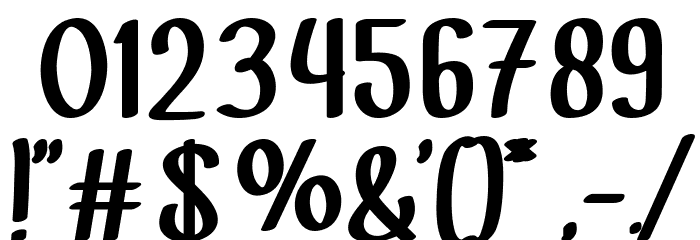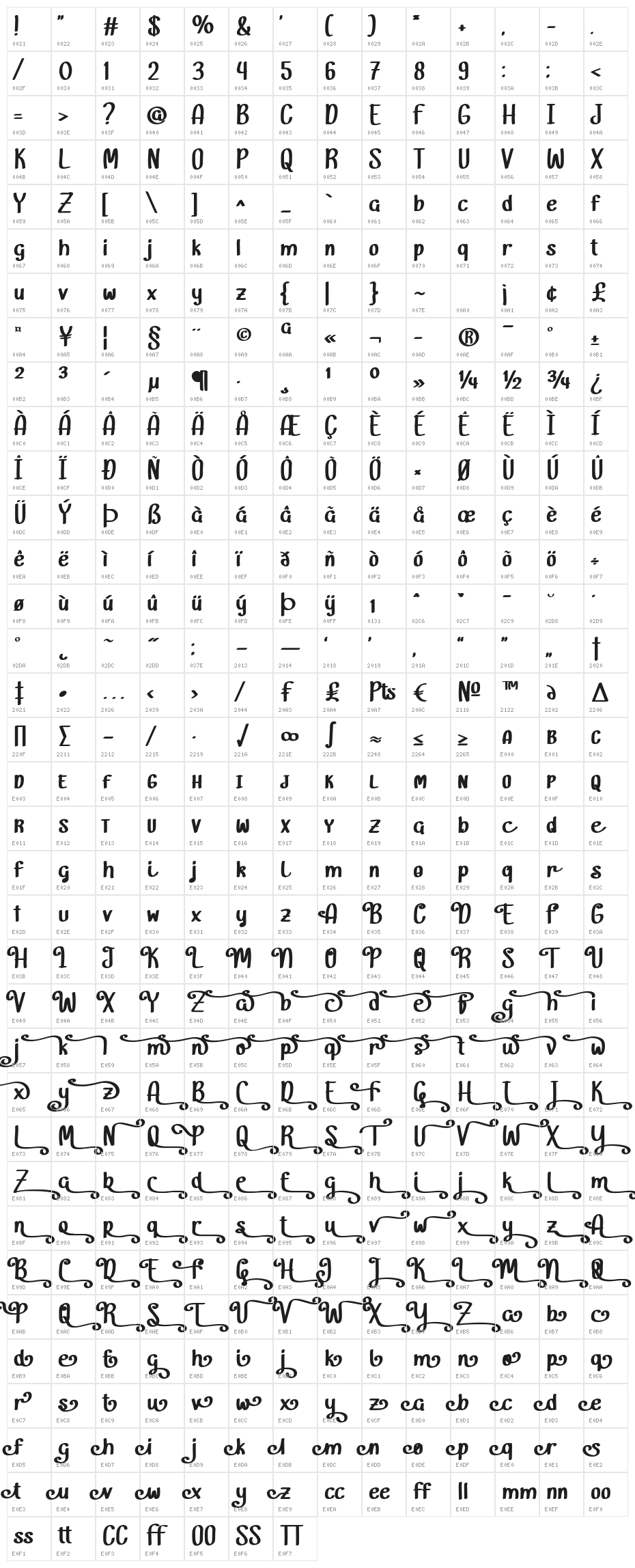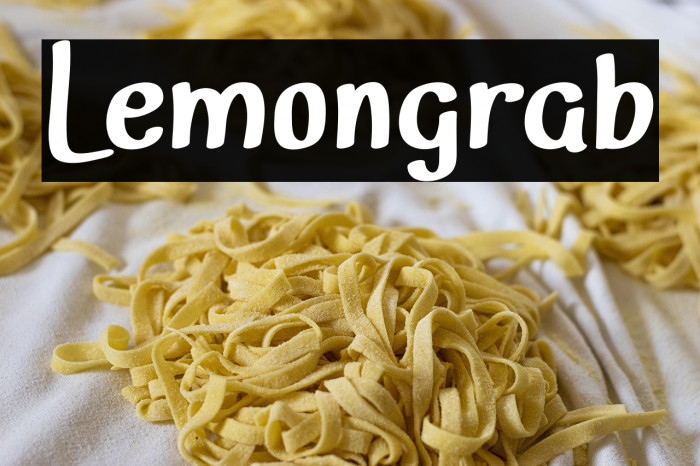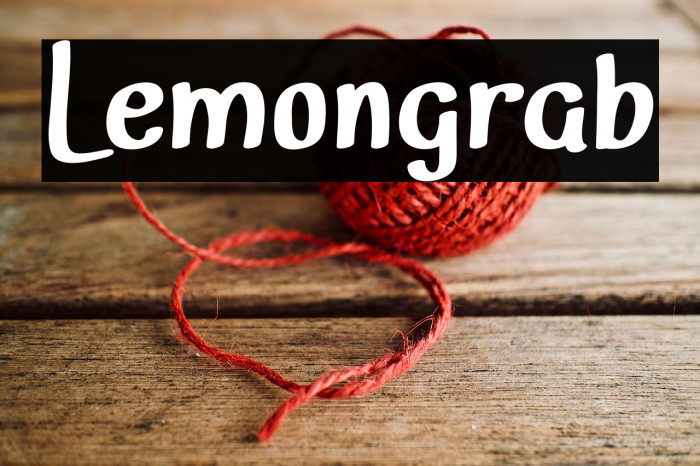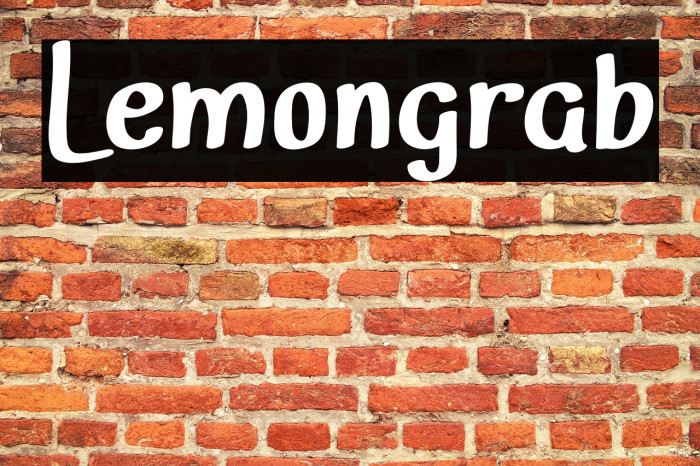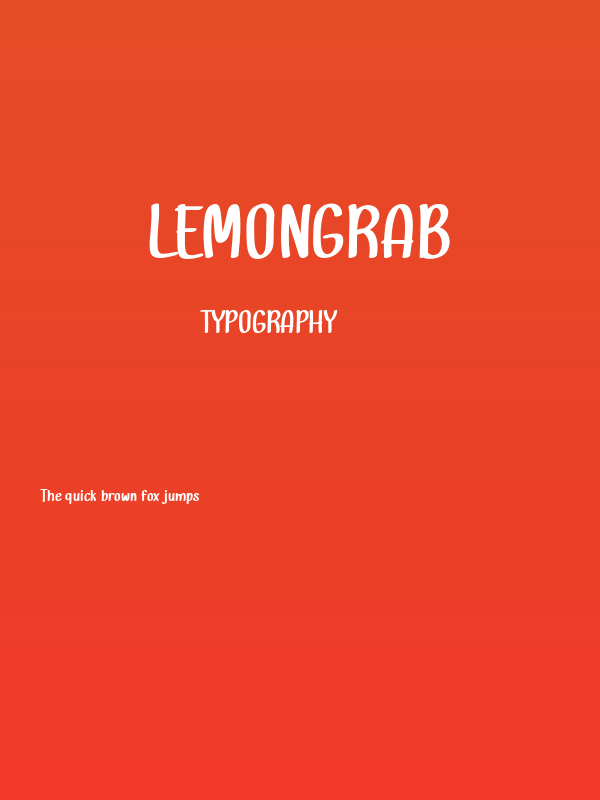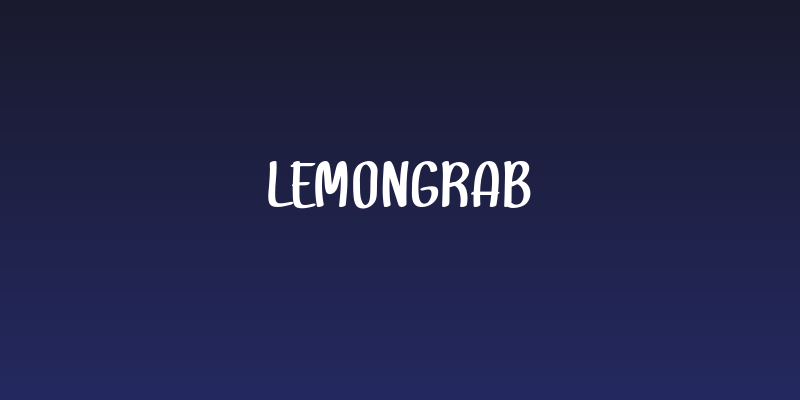
Lemongrab Font
Lemongrab Description
This playful and whimsical font features a hand-drawn aesthetic with rounded edges and a slightly irregular baseline, giving it a friendly and approachable feel. The characters are bold and have a consistent stroke width, which adds to its legibility. The uppercase letters are tall and slightly narrow, while the lowercase letters maintain a similar width, creating a cohesive look. The numerals are distinct and easy to read, and the special characters blend seamlessly with the overall style. This font is perfect for projects that require a touch of fun and creativity.